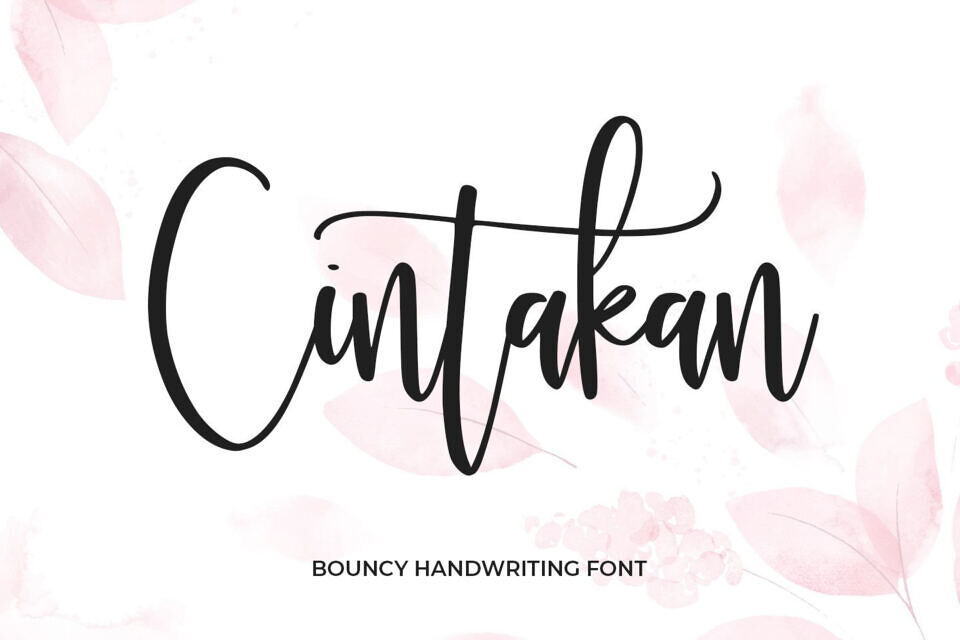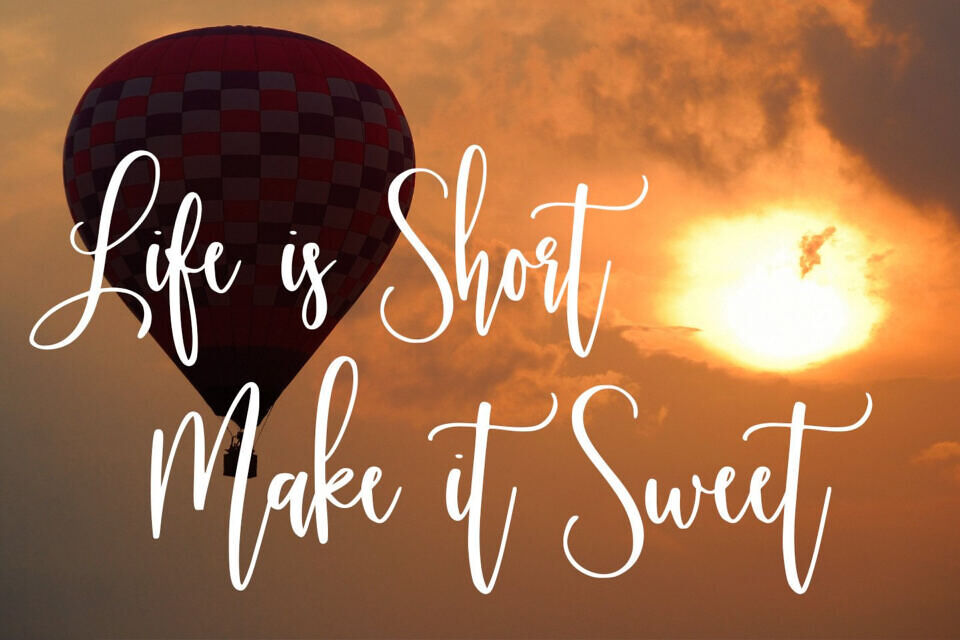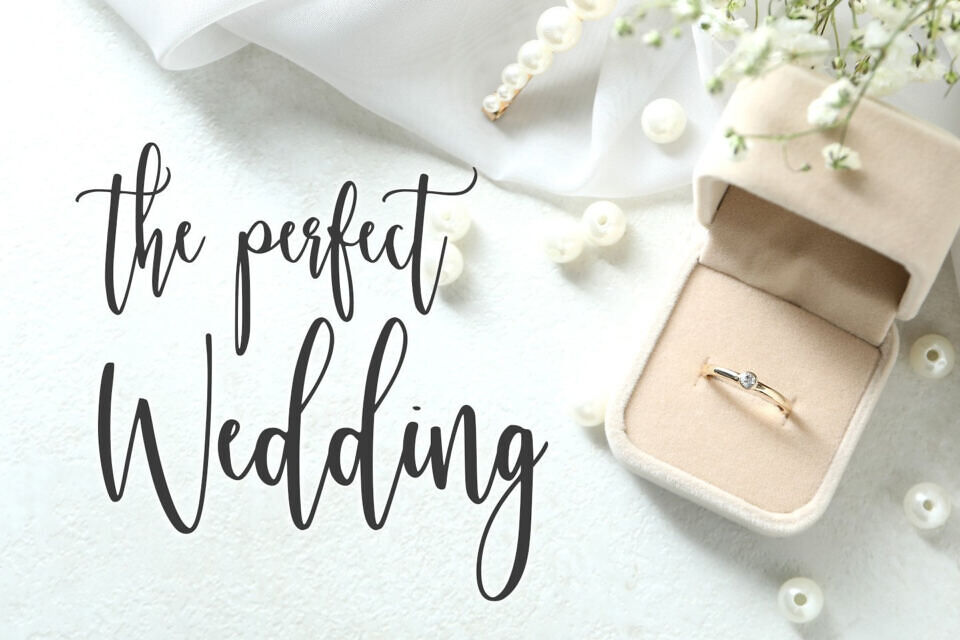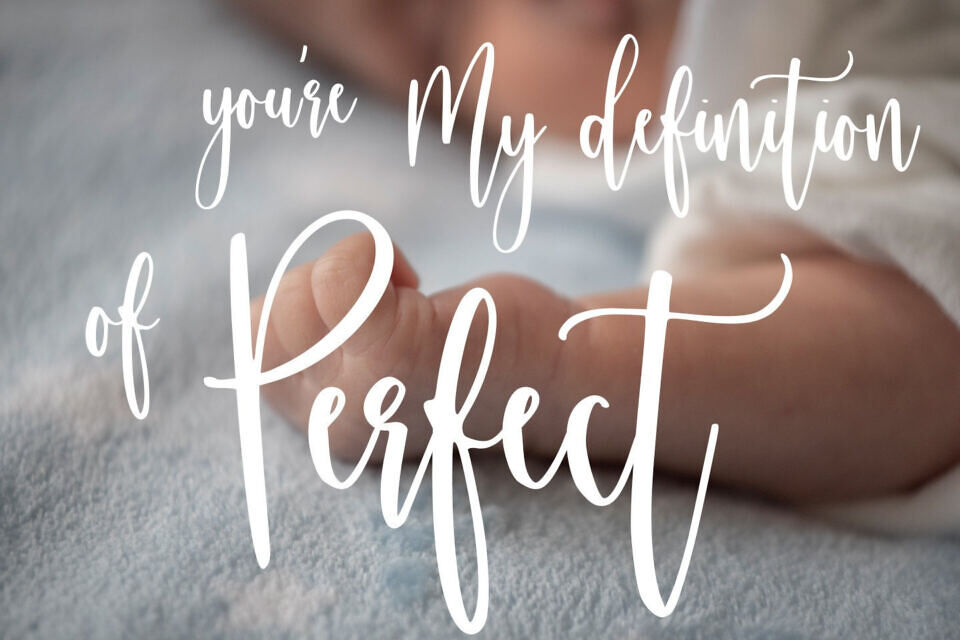
Cintakan is a dazzling script font. This font is neatly crafted and highly detailed. Whatever the topic, this font will be a wonderful asset to your font library, as it has the potential to enhance any creation.